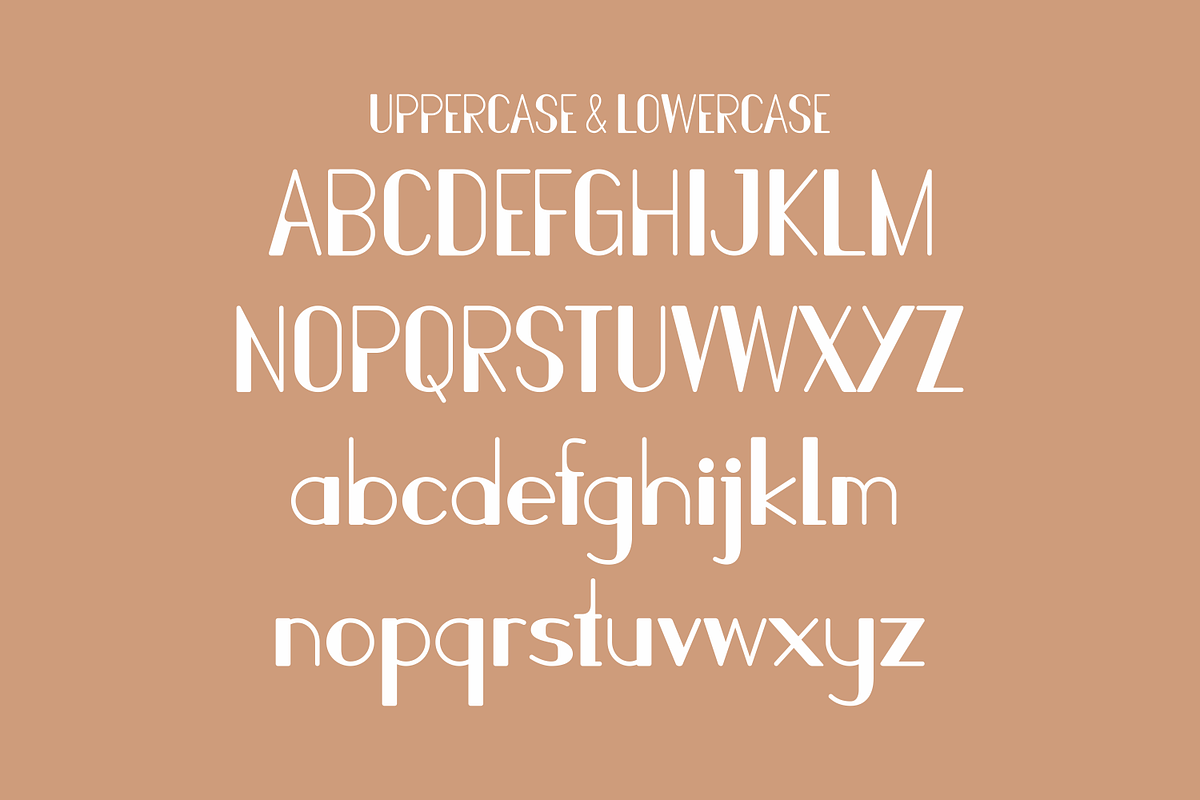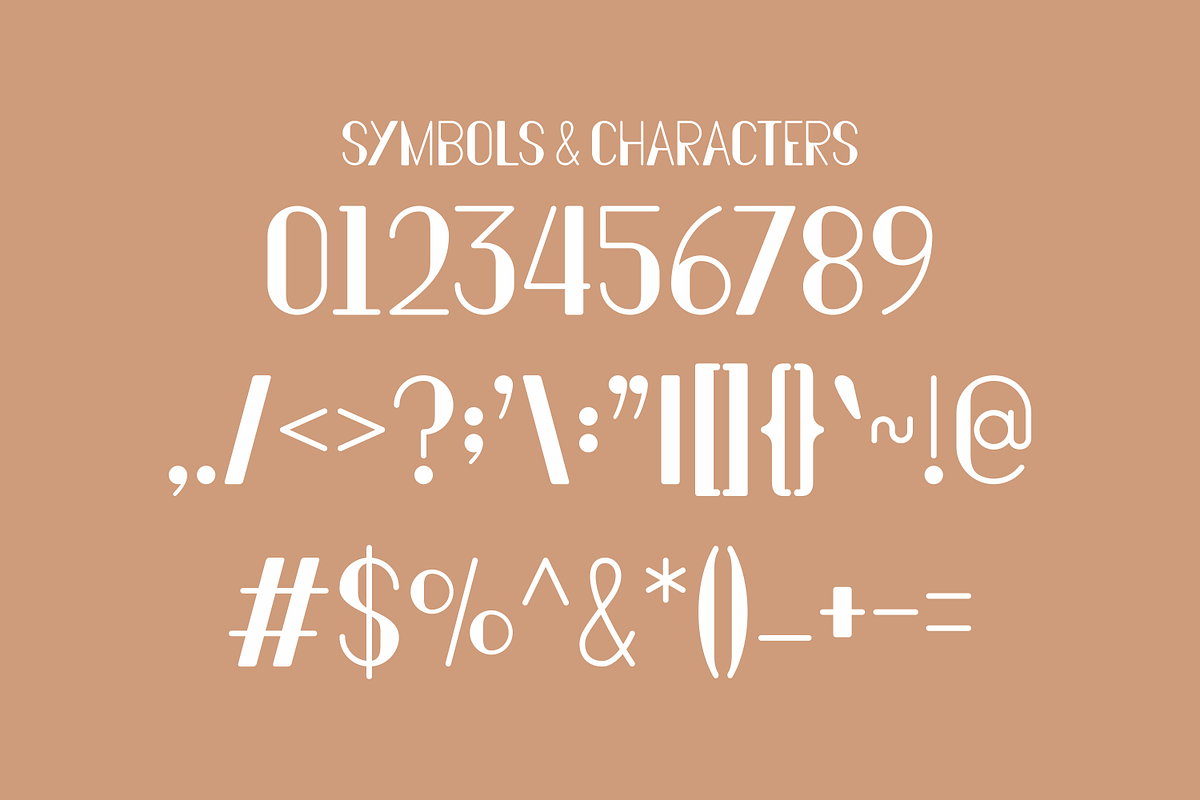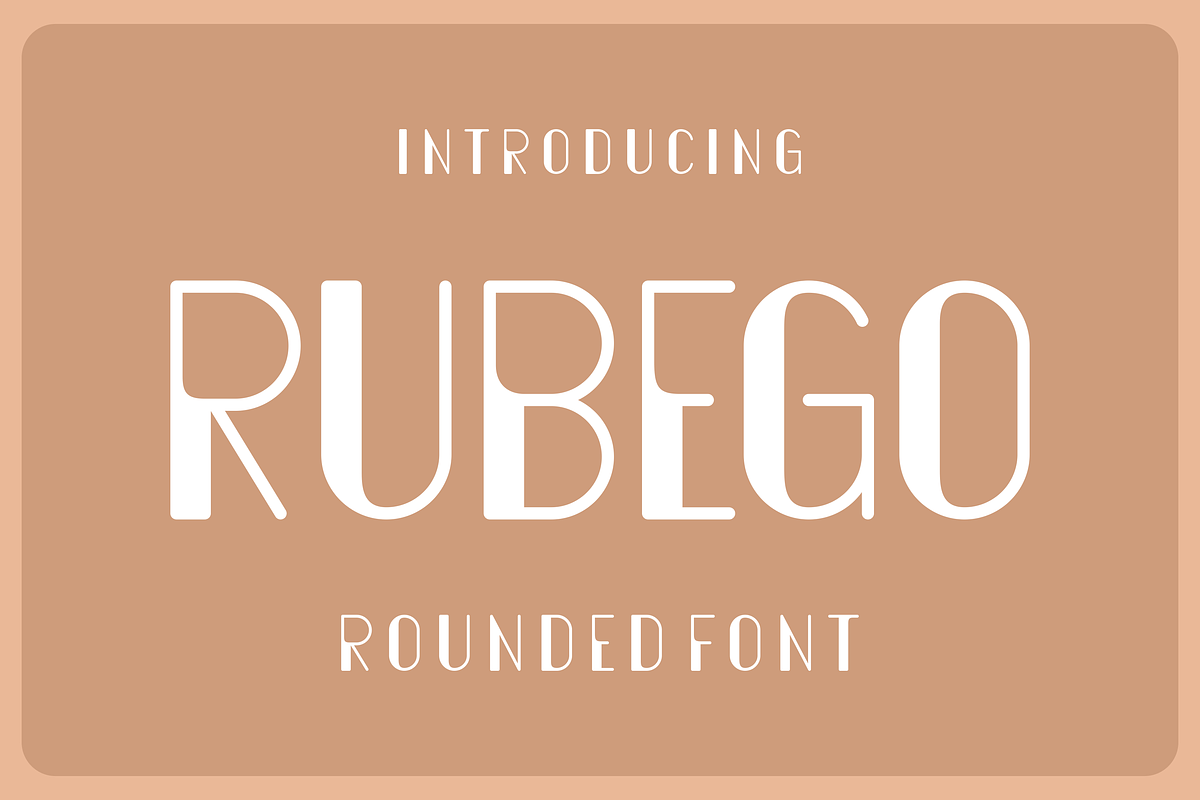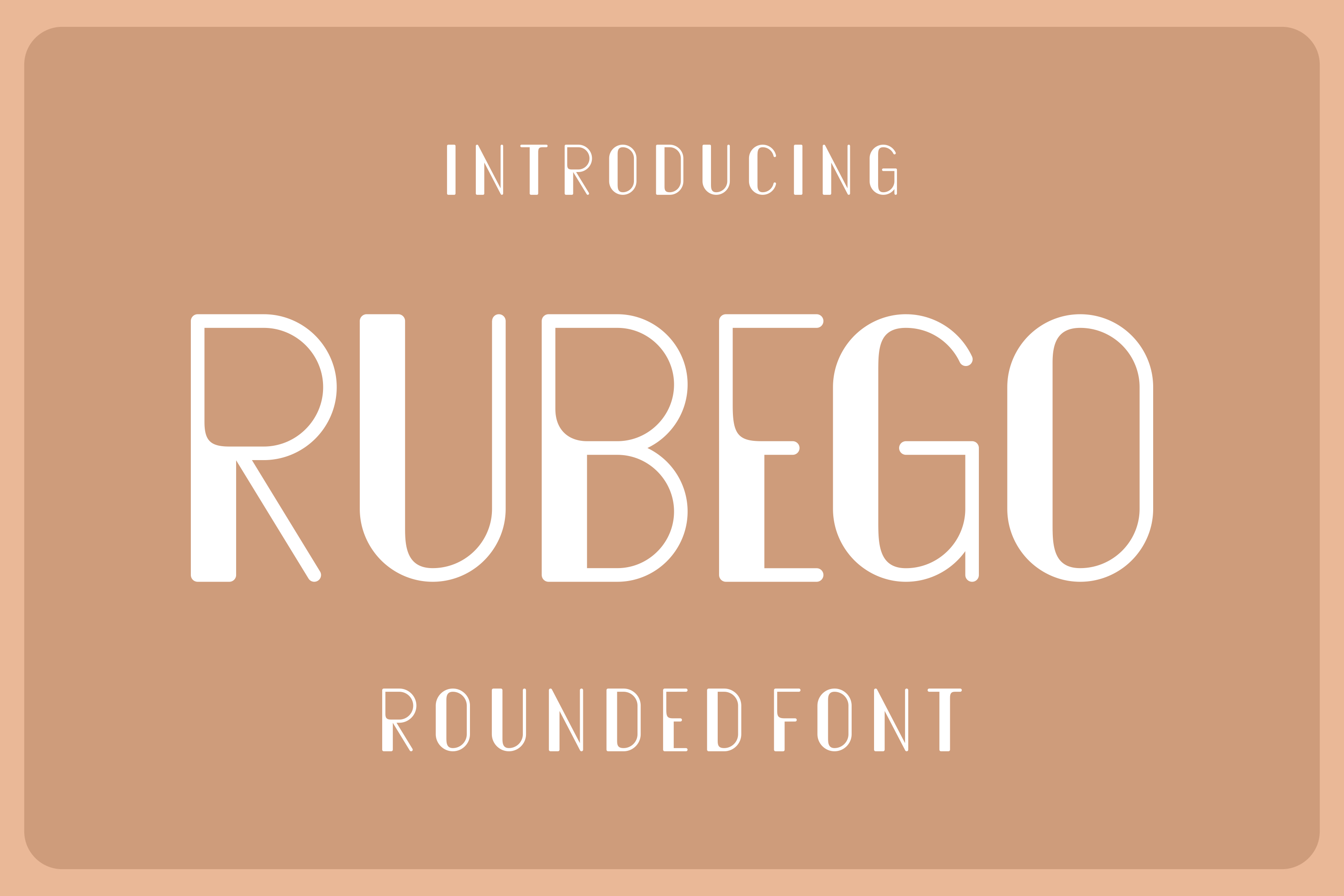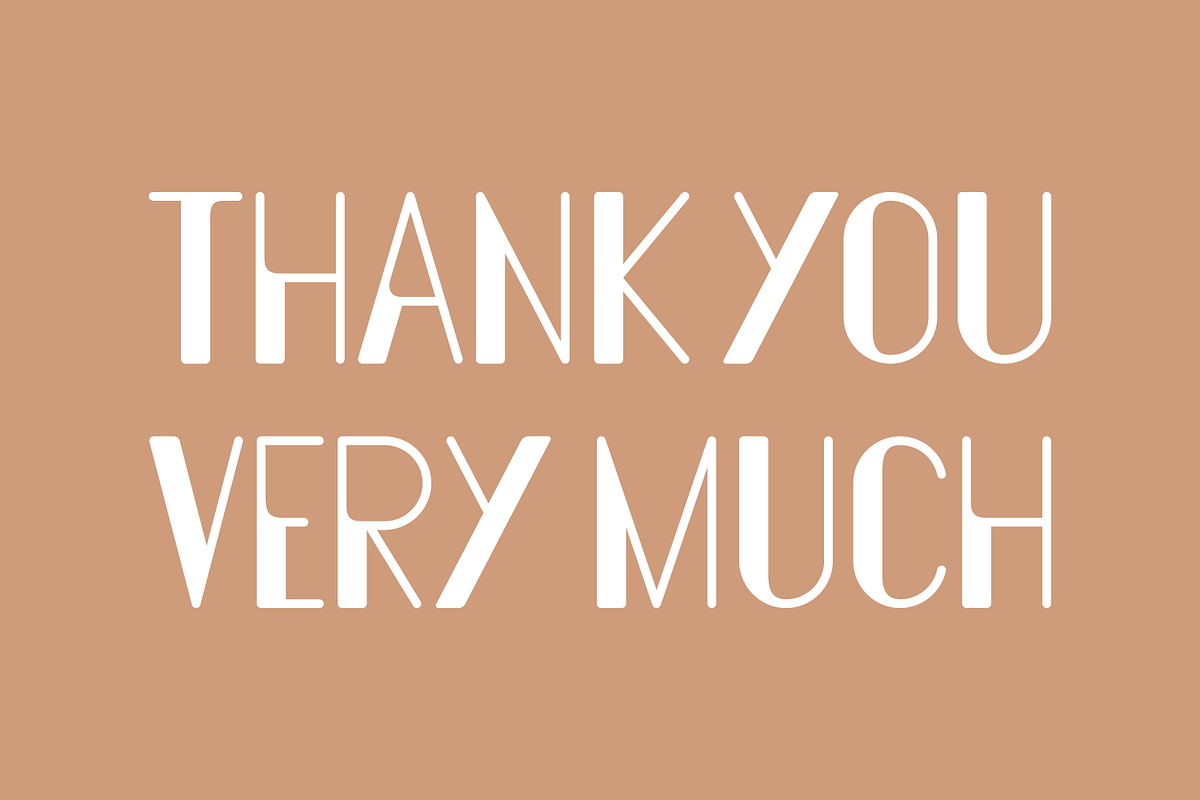
Rubego - Rounded Font
Rubego - Rounded Font Perfectly suited on print/screen. it’s perfect for Branding, name card, poster, logo, magazine, cover, banner, t-shirt and headers, or even large-scale artwork.